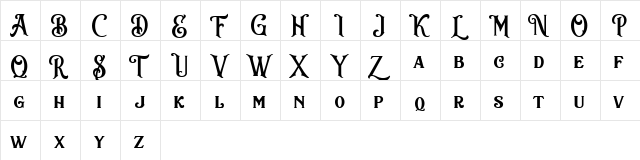
Sacred Bridge Demo Regular
Design Context for Sacred Bridge Demo Typeface
Sacred Bridge Demo is a composed and adaptable typeface that performs quietly and consistently across a wide range of design contexts.